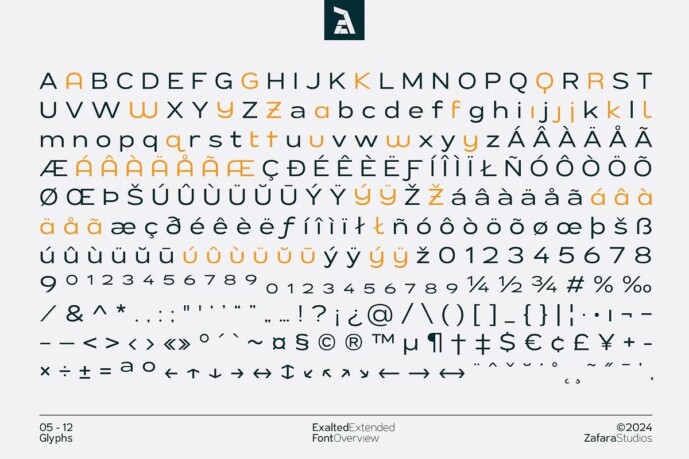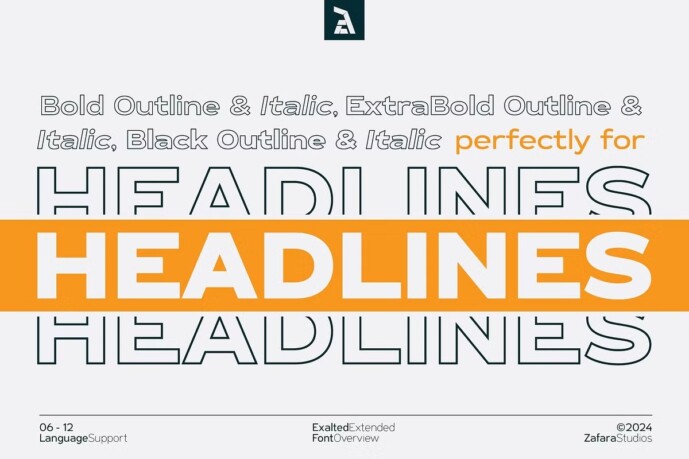
Exalted Extended Font
Exalted Extended Font is a geometric font that embodies strength and clarity. Defined by its clean lines and sharp angles, creating a sense of precision and power. Exalted features bold, geometric forms inspired by circles, squares, and triangles, with a uniform stroke width emphasizing the clean structure of the letters.
Exalted Extended can fulfill all types of needs such as editorial design, branding, graphic design, signage, logos, apps, websites, eBooks, print media such as flyers, brochures, magazines, and all kinds of purposes that are suitable for this font.